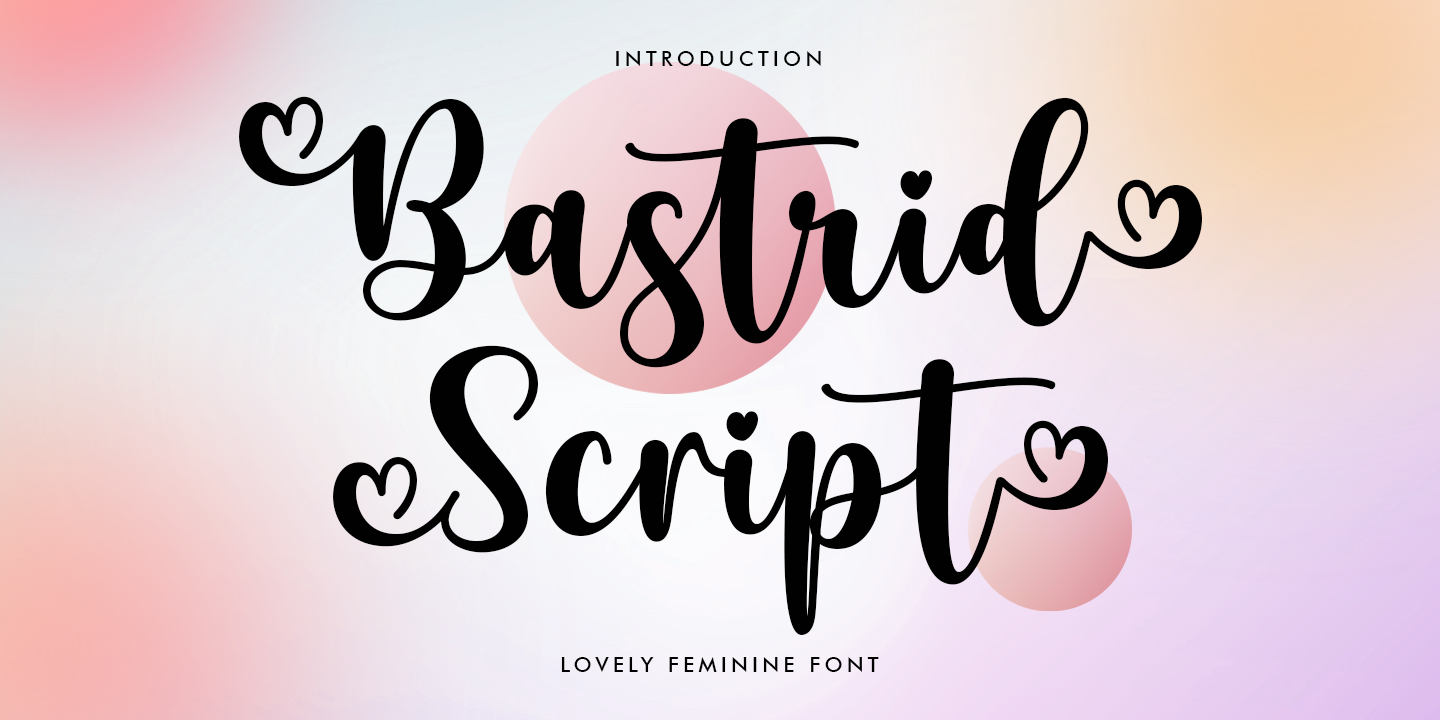
Bastrid Script Font is ideal for elegant wedding invitations, luxury brand signatures, handwritten letter designs, calligraphy workshops, boutique fashion labels, romantic greeting cards, personal branding materials, upscale restaurant menus, artistic signature logos, handcrafted product packaging, intimate event stationery, and sophisticated personal communications.
This font is exciting because it flows with the graceful elegance and personal intimacy of masterful hand lettering, featuring beautifully crafted script letterforms that dance across the page with the same fluid grace and artistic sophistication found in the finest calligraphy and handwritten love letters from bygone eras. The flowing character design captures both the technical precision of skilled penmanship and the emotional warmth of personal expression, creating typography that feels both professionally polished and genuinely heartfelt. Each letter connects with natural rhythm and organic beauty, transforming ordinary text into intimate expressions that speak directly to the heart with authentic human touch.
The Bastrid Script Font family includes regular weight with complete character sets featuring elegant script numerals, flowing punctuation marks, and decorative flourishes that enhance the handwritten aesthetic. Advanced versions may offer additional stylistic variants with enhanced calligraphic effects, alternate characters that create natural script connections, and ornamental swashes that celebrate the artistry of traditional penmanship and modern calligraphy.
Whether you're developing sophisticated personal branding, creating elegant event materials, or designing intimate communications, Bastrid Script Font Free Download provides the handwritten elegance and personal warmth your project needs to create meaningful connections that resonate with audiences who appreciate authentic human artistry over digital coldness. This typeface transforms ordinary text into personal messages that carry the emotional weight and visual beauty of carefully crafted handwriting. The font's script character makes it perfect for brands and occasions that celebrate personal connection, artistic craftsmanship, and intimate communication. Calligraphy enthusiasts and elegant design lovers will appreciate how this font brings authentic handwritten sophistication to their work with its genuinely flowing and artistically refined character that honors the timeless beauty of script lettering.